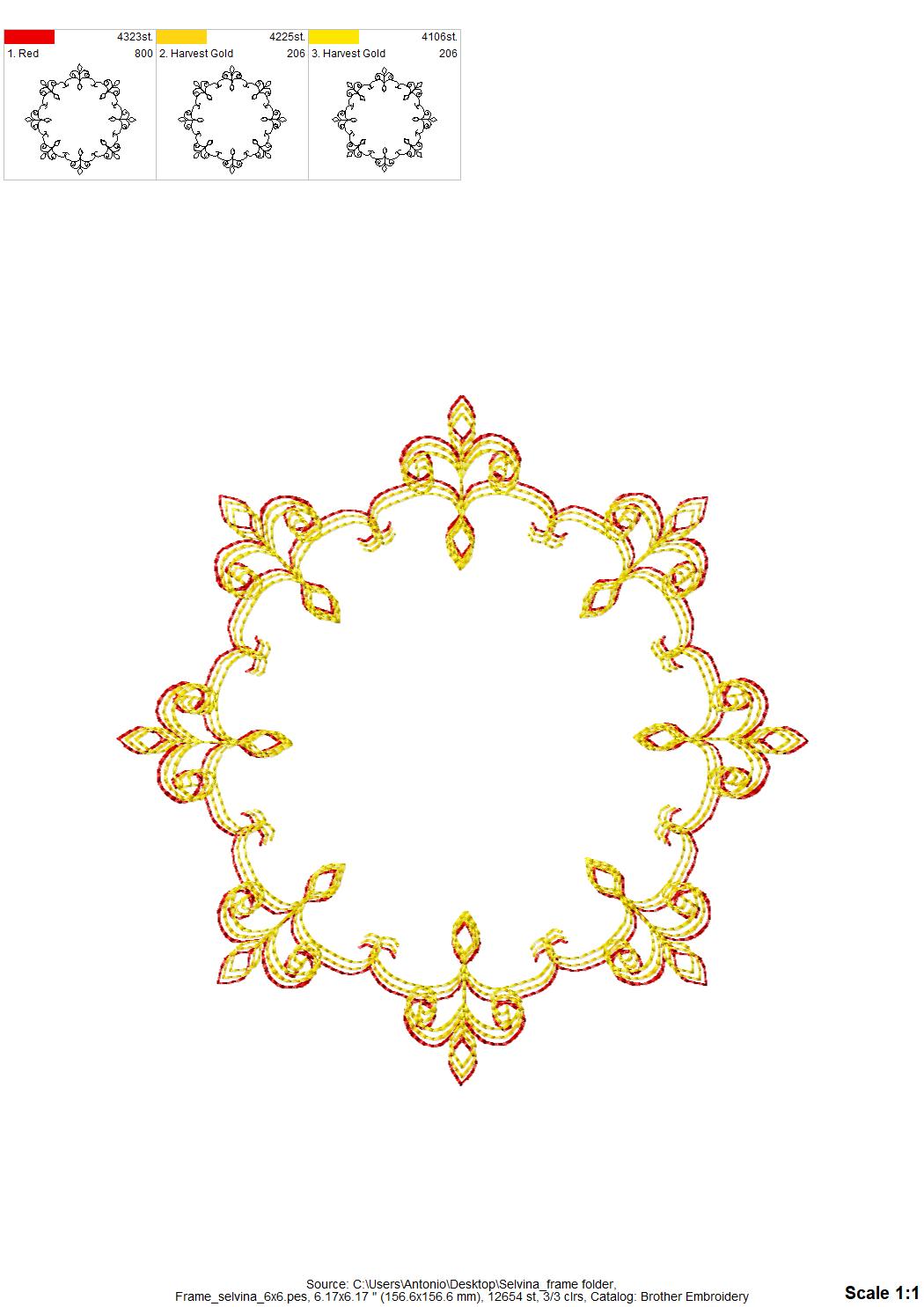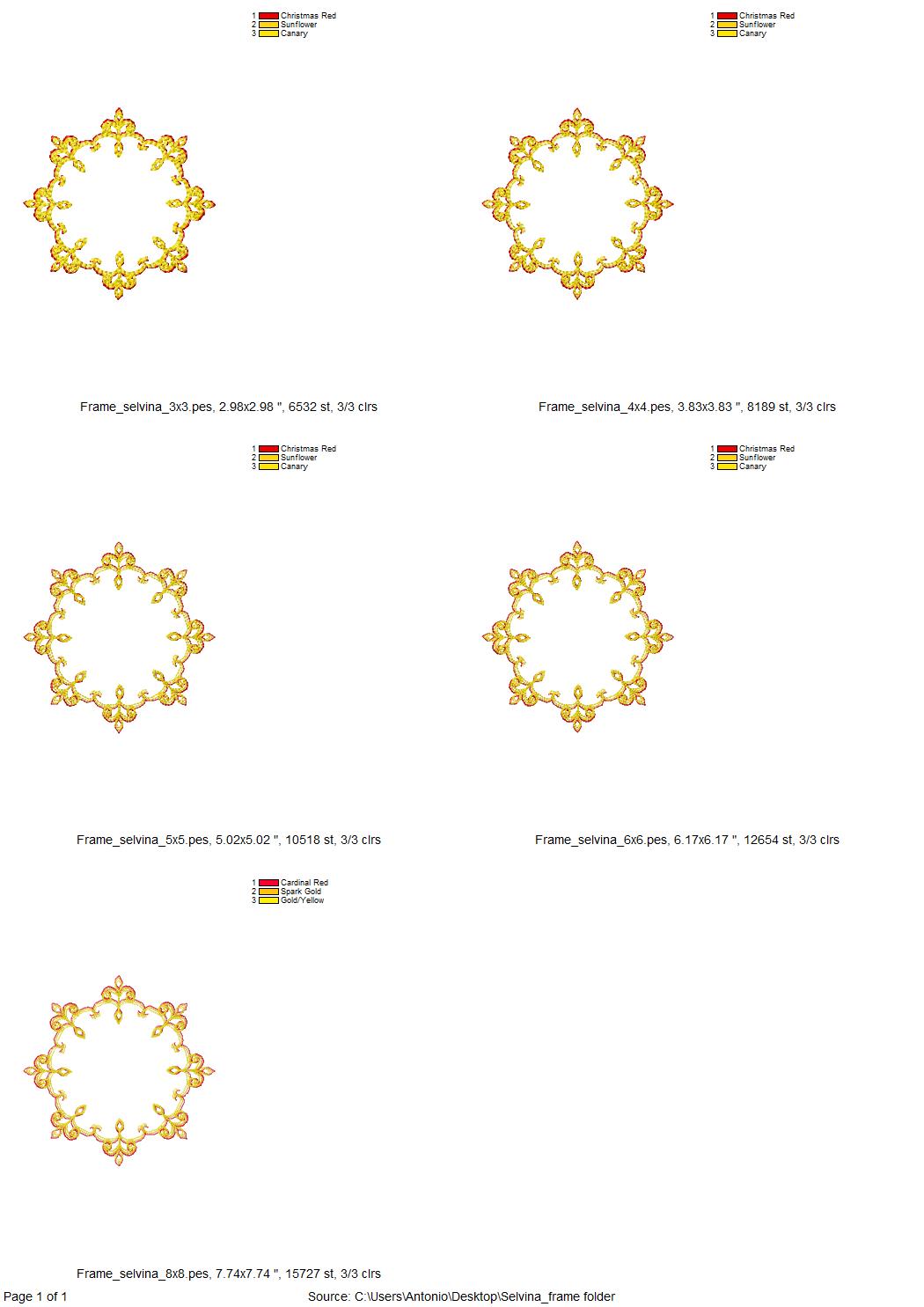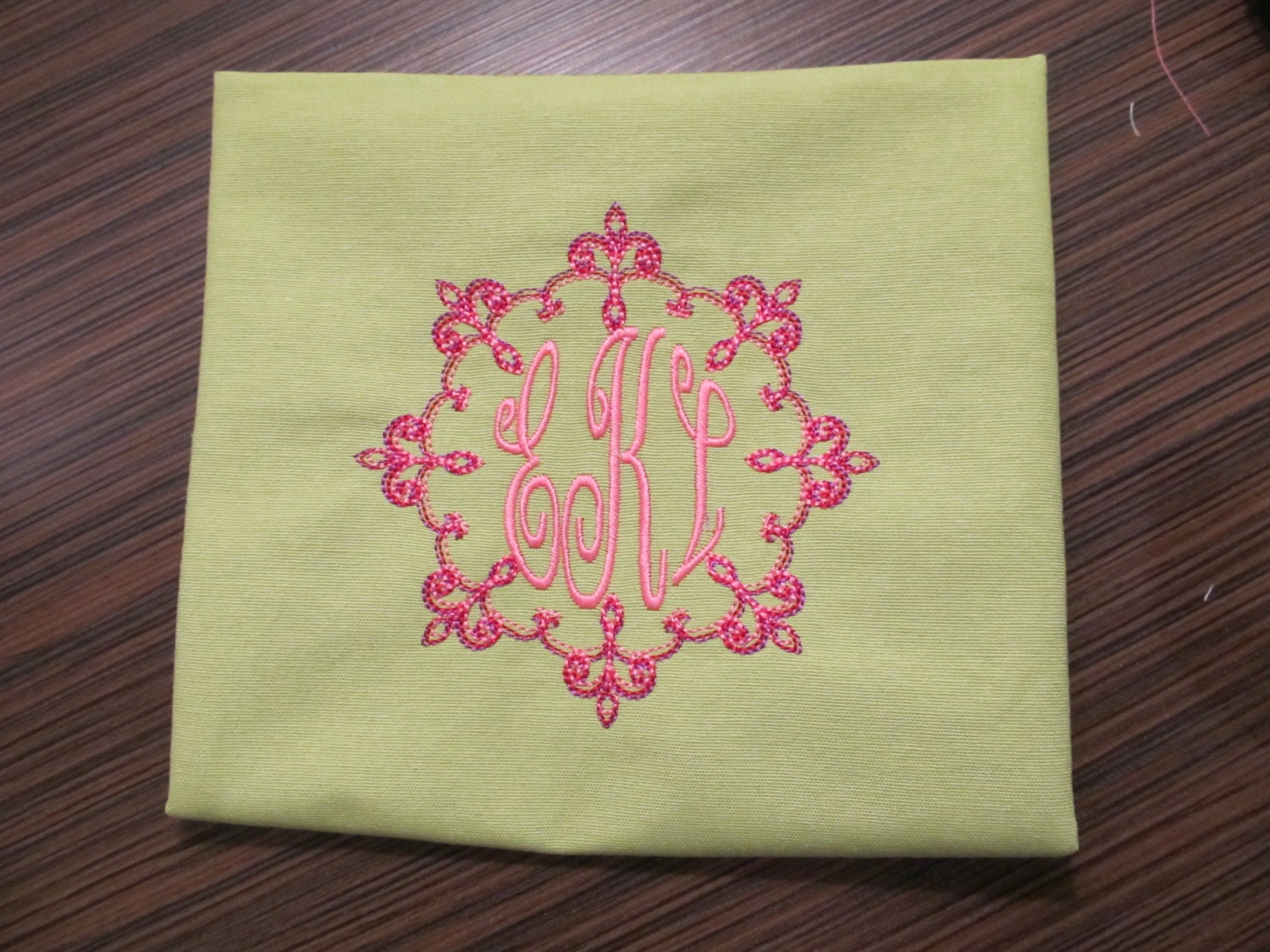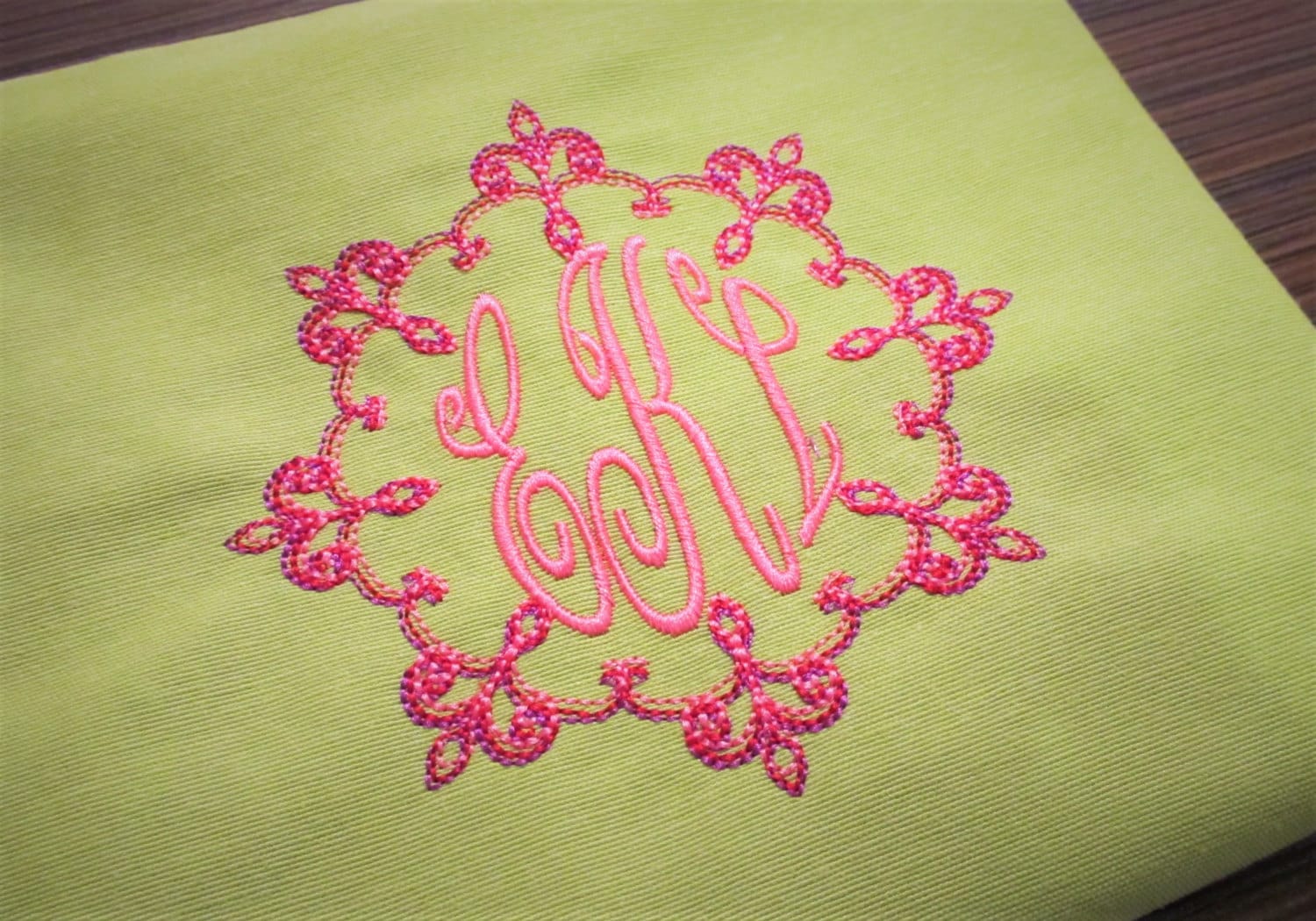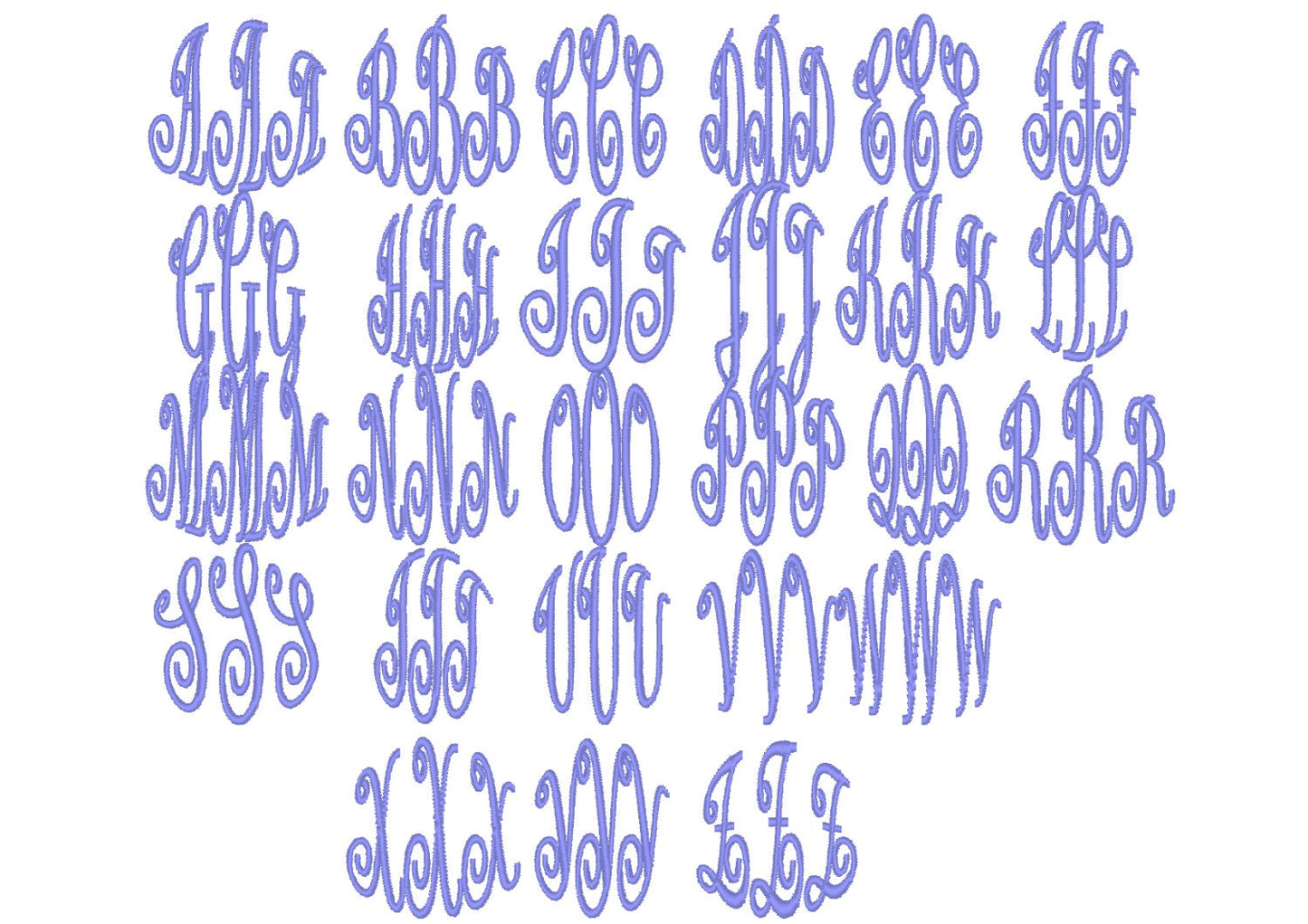
Circle Monogram Font and Frame Set
Or click to open the linkA rainbow stencil circle frame with a matching circle monogram font. Fun for kids' shirts, pillows, bags and gifts.
The circle monogram letters come as left, center and right pieces that join into a round monogram, in nine sizes: 1.2, 1.6, 2, 2.4, 2.8, 3.1, 3.9, 5.1 and 5.9 inches. The rainbow stencil circle frame goes around it and comes in 3, 4, 5, 6 and 7.5 inches.
- Rainbow stencil circle frame, 3 to 7.5 in
- Circle monogram font, left, center and right letters A to Z
- Monogram in 9 sizes, 1.2 to 5.9 in